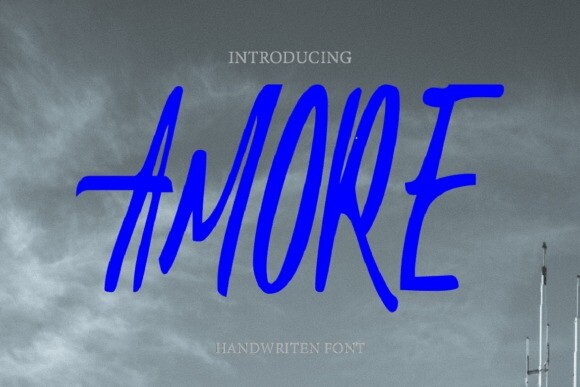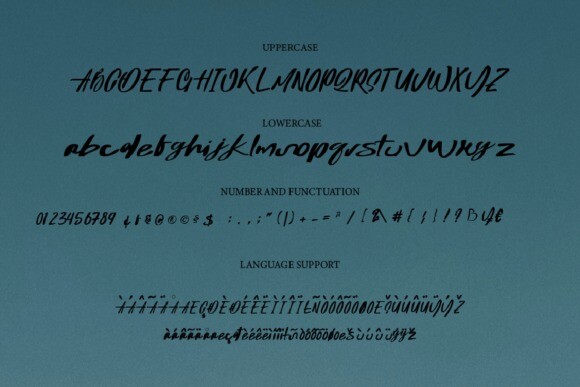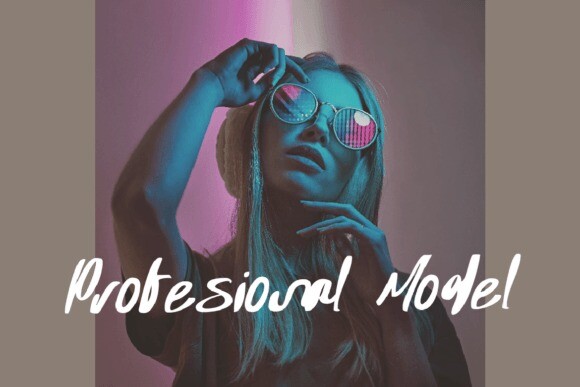
Amore Typeface
Amore Font is a gorgeous and bold handwritten font, crafted to give your headlines and logotype projects a stylish touch. This font reads strong, confident, and dynamic and can add tons of nostalgic character to your designs.